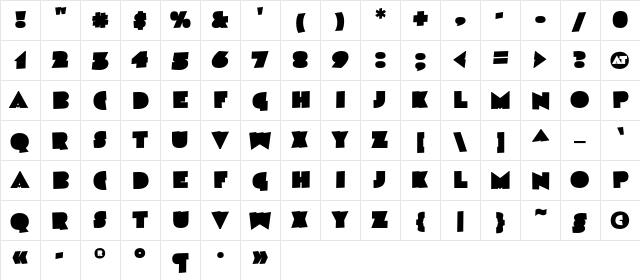
NewYear2013 Regular
Design Context for NewYear2013 Typeface
NewYear2013 is a composed and adaptable typeface that performs quietly and consistently across a wide range of design contexts.